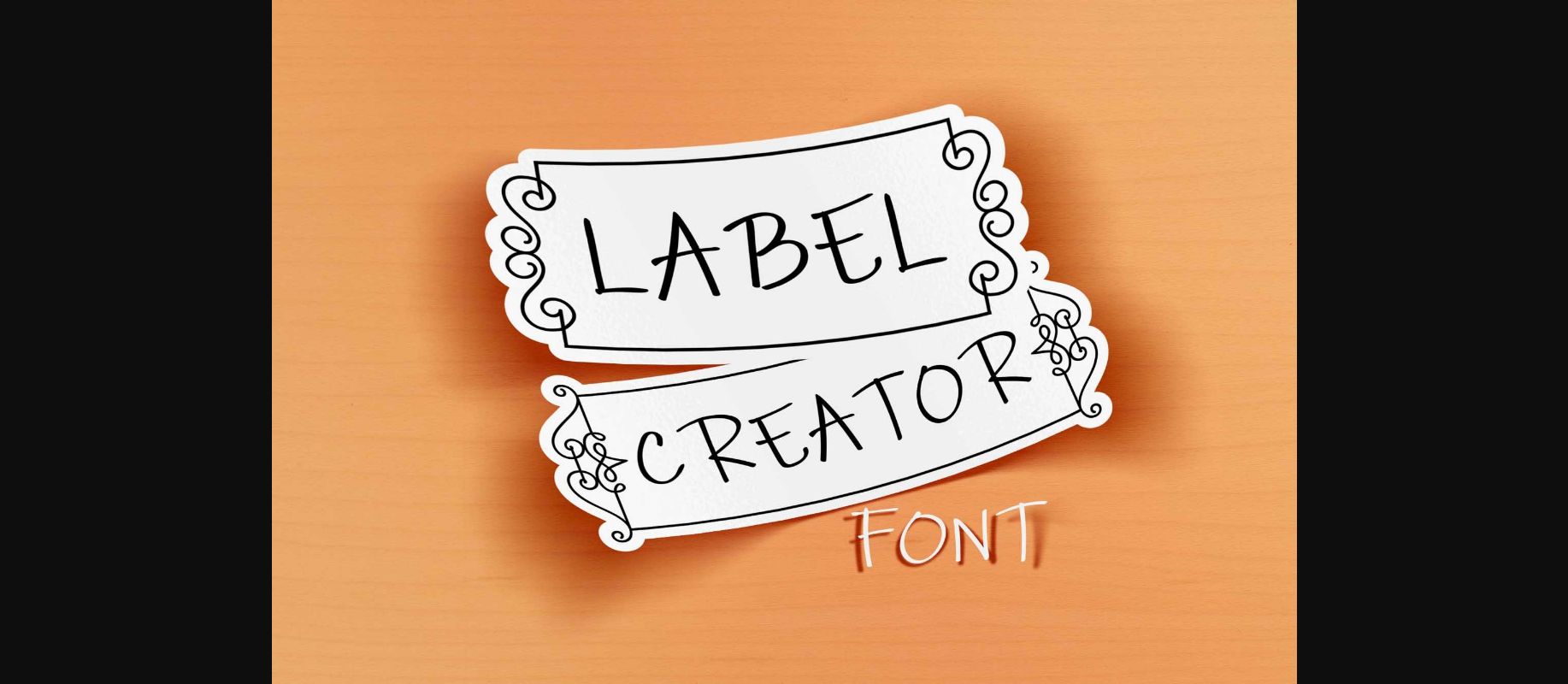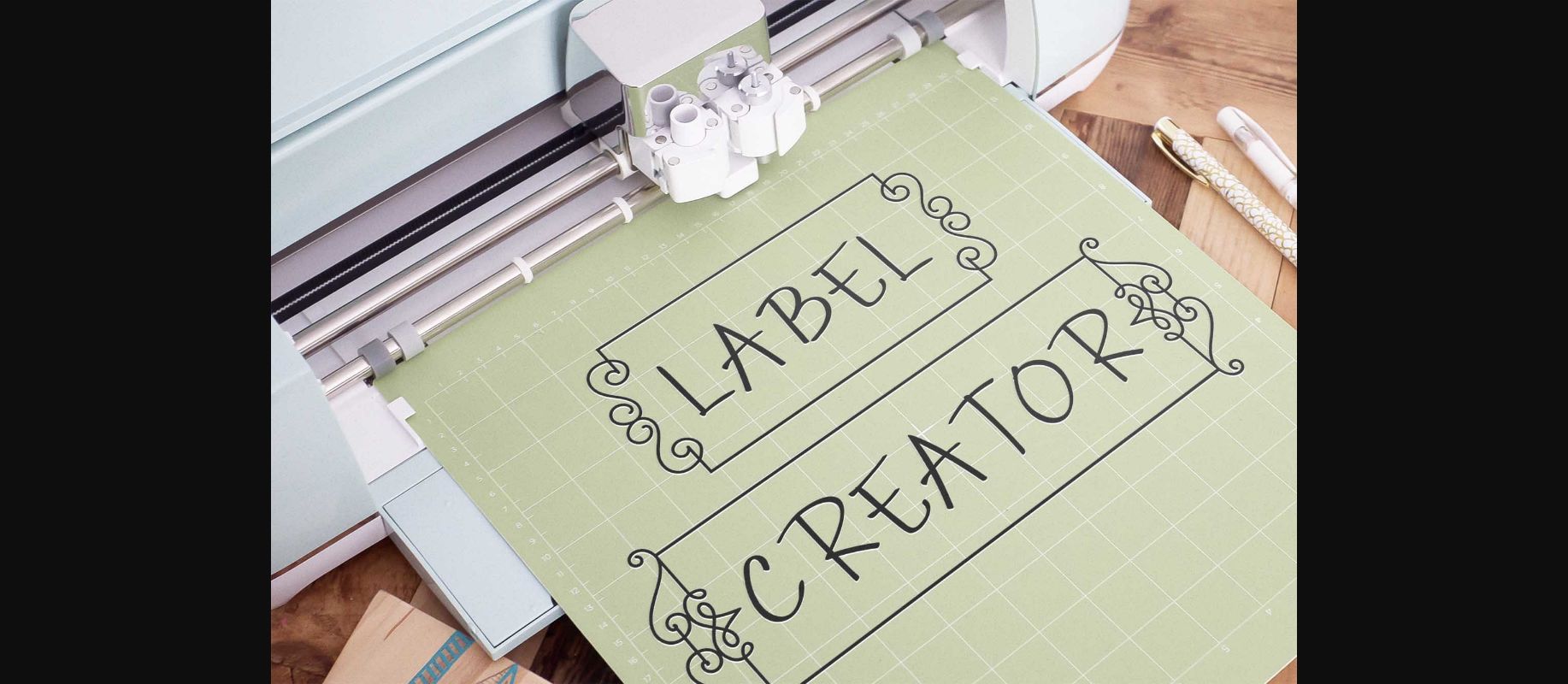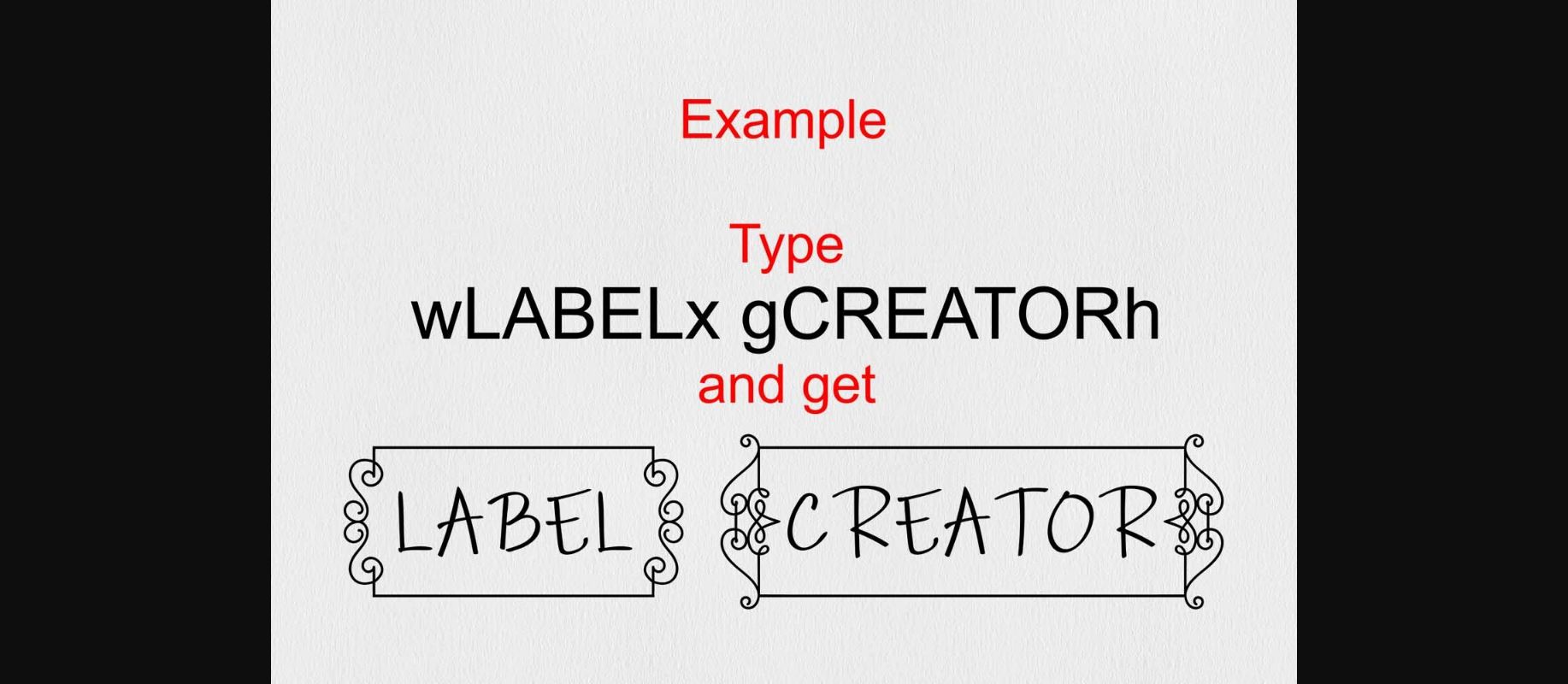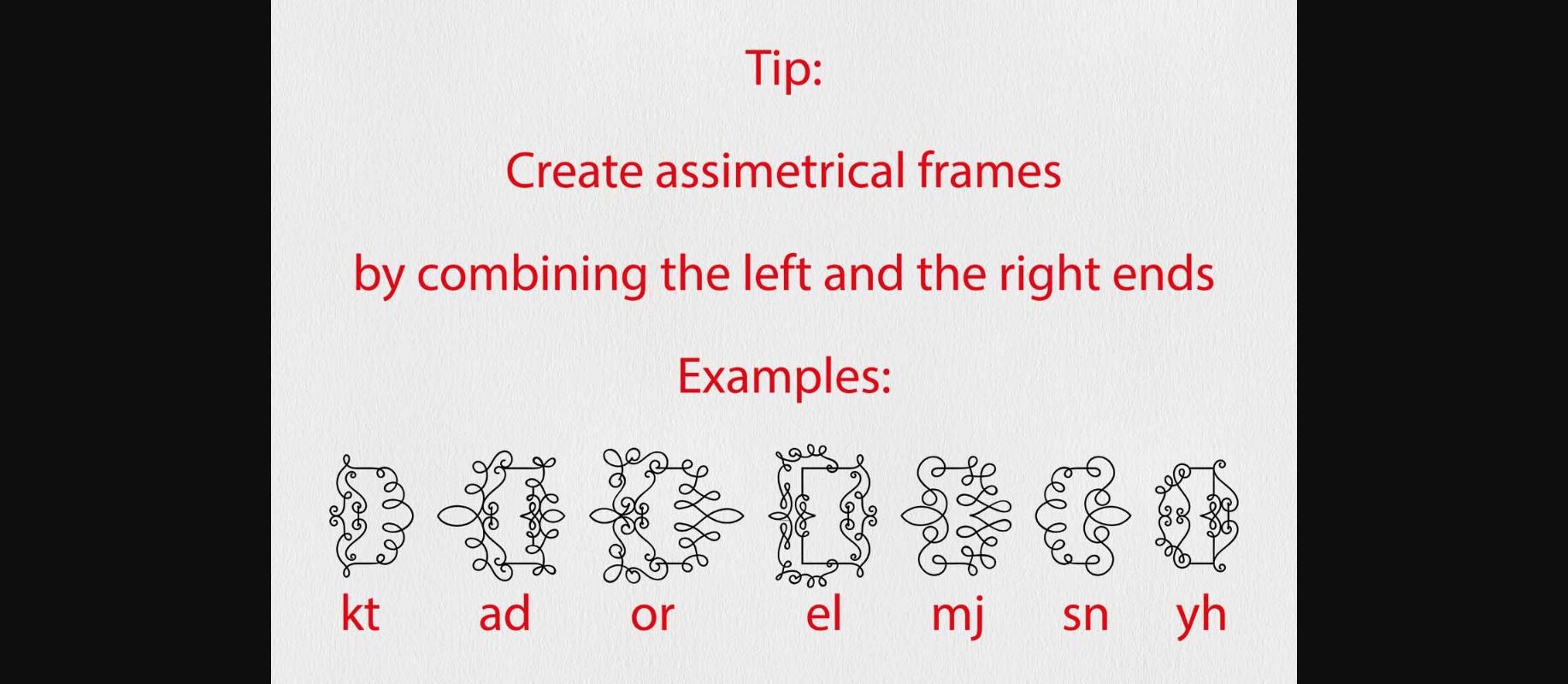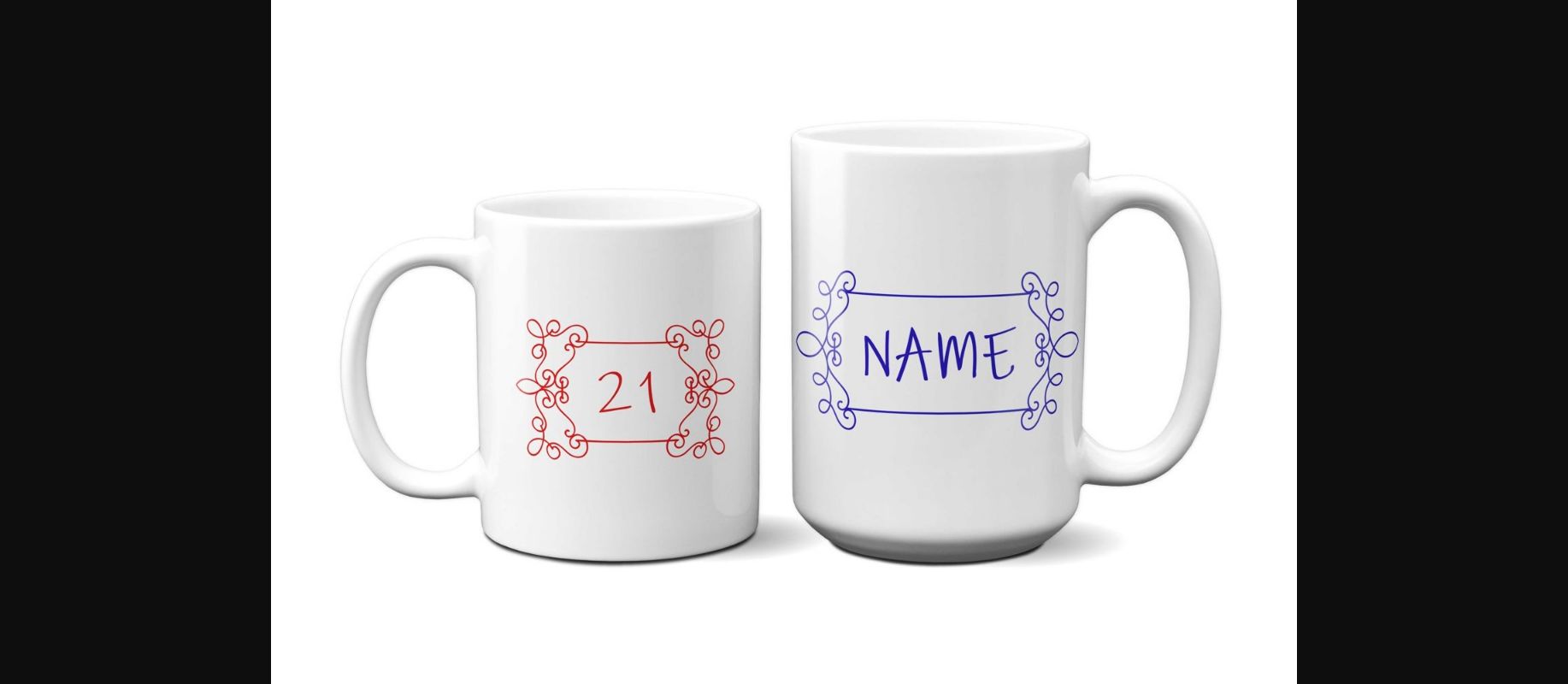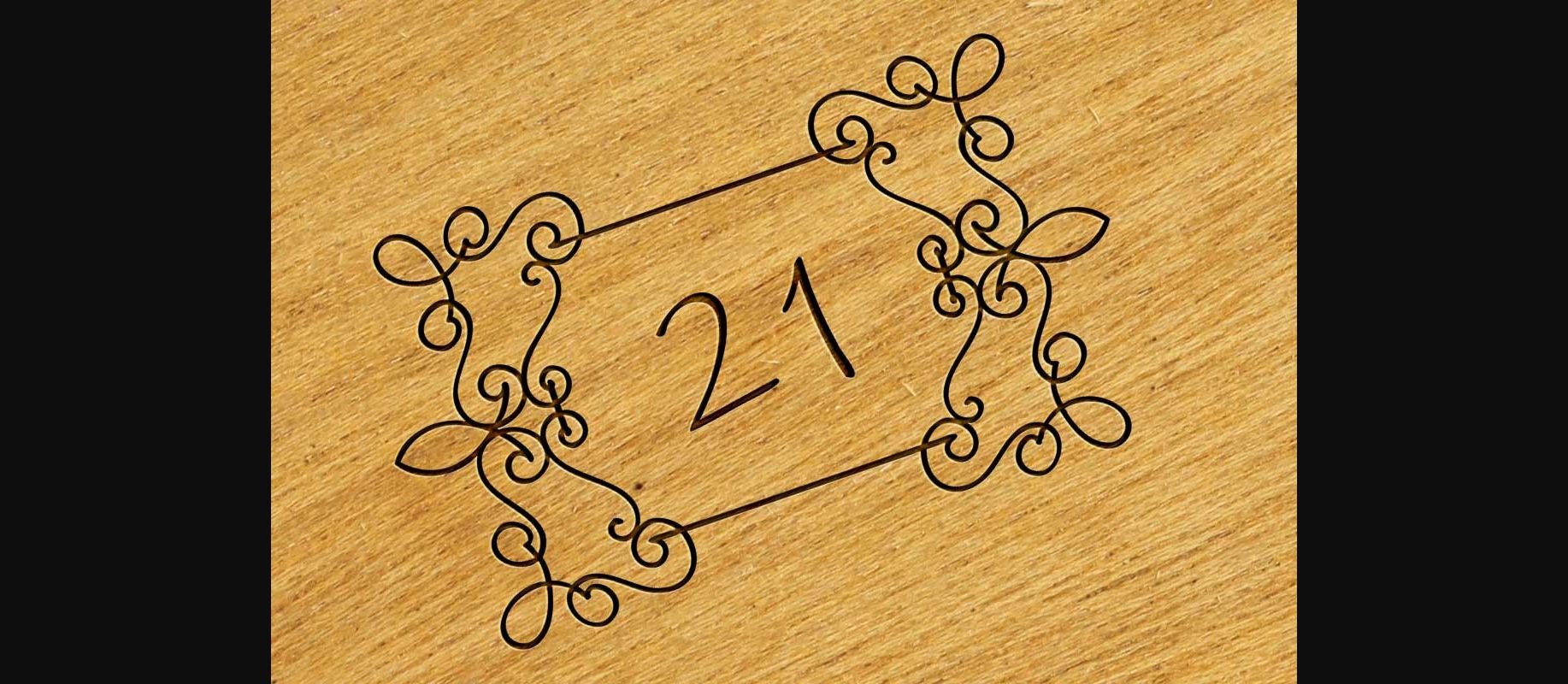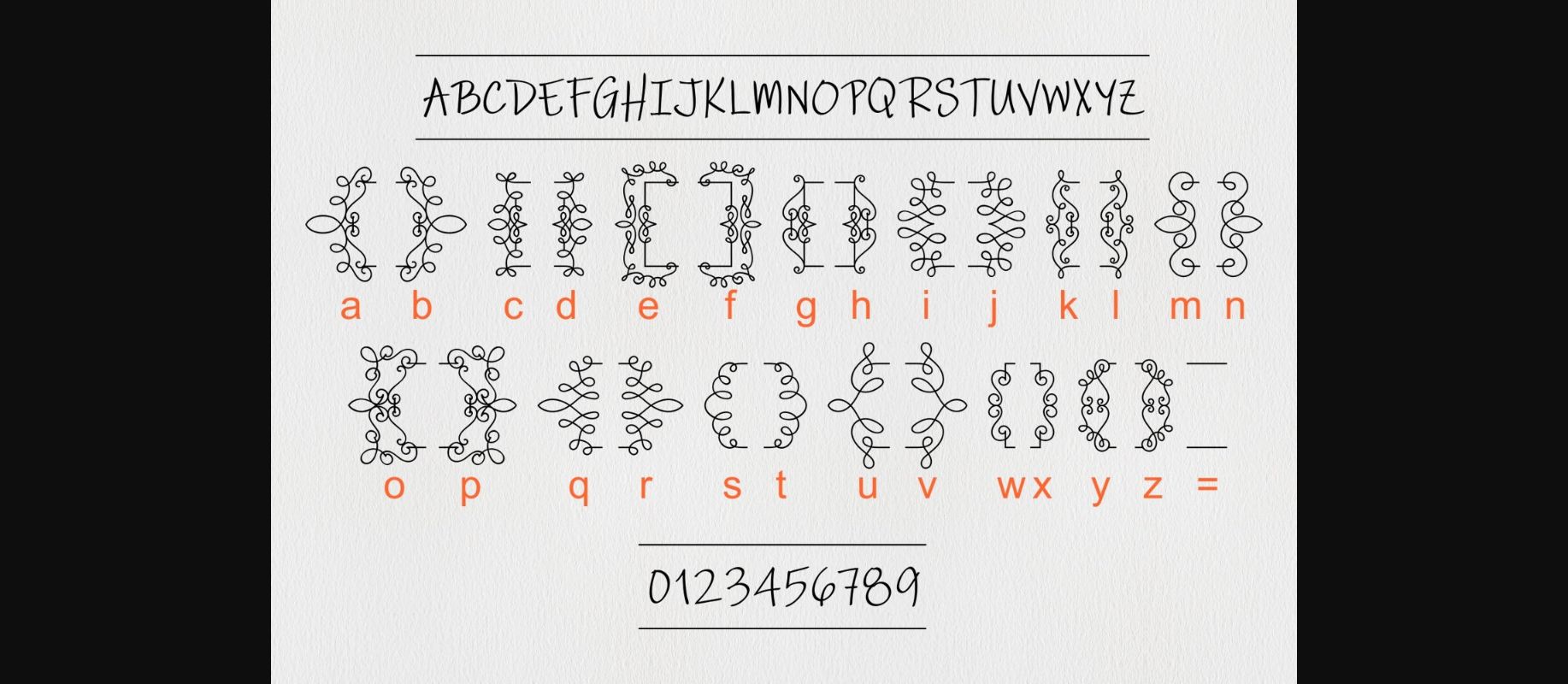
Label Creator is an elegant and distinct decorative font. Fall for its ravishing style and use it to create gorgeous wedding invitations, beautiful stationary art, eye-catching social media posts, and much more!